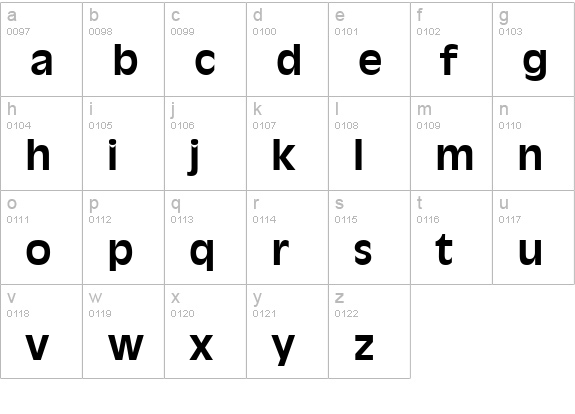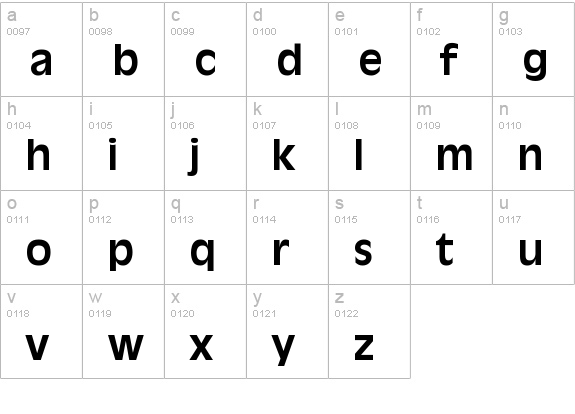
Decade SSi Bold is a strong, high-contrast variant in the Decade typeface family \xE2\x80\x94 well suited to headlines, attention-grabbing titles, and strong calls-to-action.
Decade SSi Bold font is a modern and stylish typeface that exudes confidence and elegance. Its bold weight makes it perfect for creating eye-catching headlines, titles, and branding materials. With its clean lines and sharp edges, Decade SSi Bold font commands attention and adds a touch of sophistication to any design project. The best part is that Decade SSi Bold font is completely free to download at FontsMarket.com. Whether you're a designer looking to add a contemporary flair to your creations or a business owner seeking a distinctive font for your brand, Decade SSi Bold font is a versatile choice that won't cost you a thing. Download it today and elevate your designs with this stunning typeface.